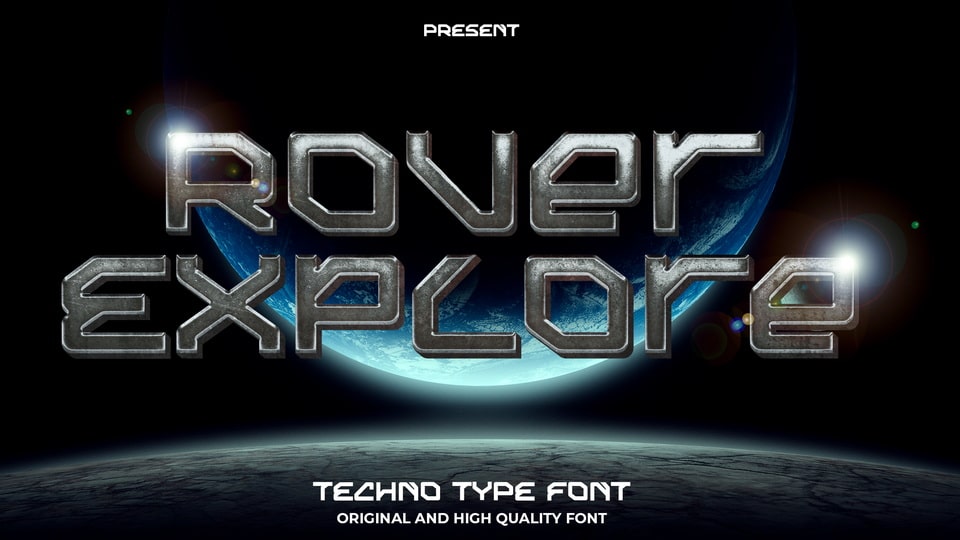
Download Rover Explore font, the ultimate techno type display font for your next project! If you’re looking for a futuristic and modern display font that’s perfect for gaming, Instagram, YouTube, or movie posters, Rover Explore is the perfect choice.